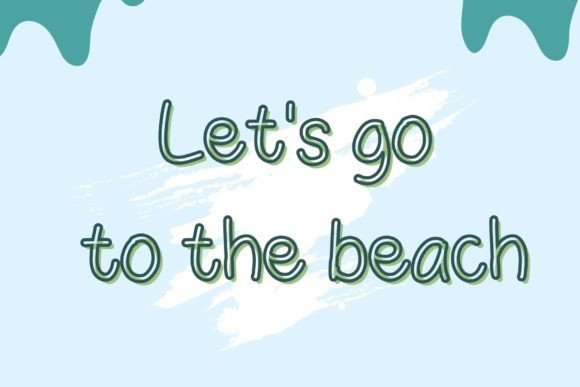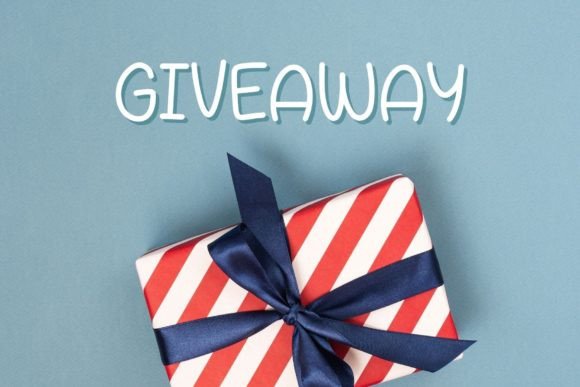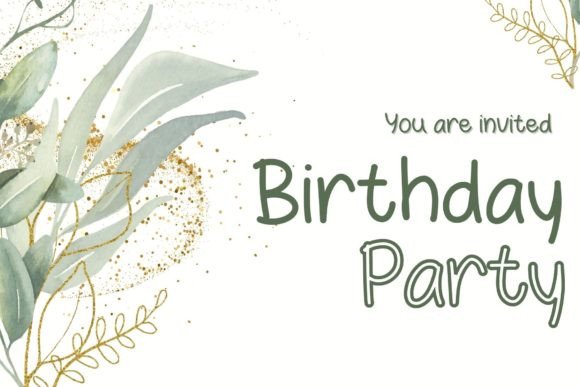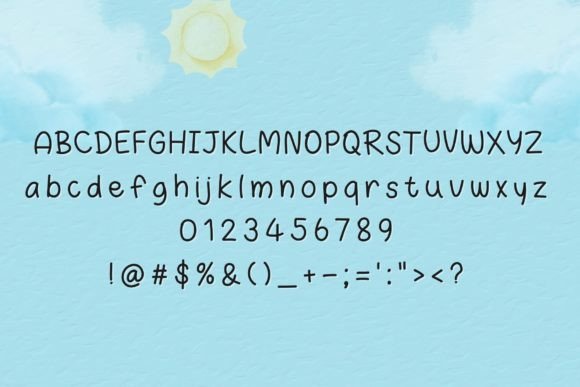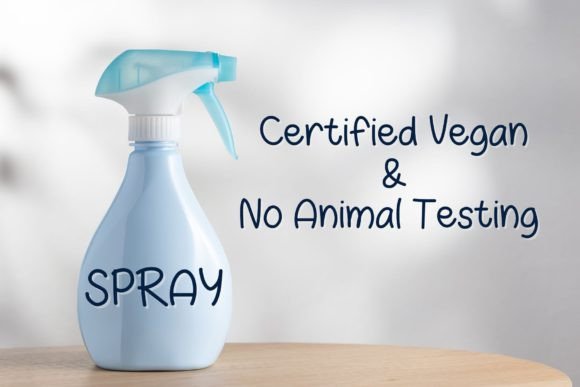
Discover the Elegance of Camilla Font: Elevate Your Design Projects
Are you a designer or creative looking to add a touch of sophistication and style to your projects? Look no further than the Camilla font. This stunning typeface is the perfect choice for those who want to elevate their design projects and make a lasting impression. In this article, we’ll explore the features and benefits of Camilla font, and why it’s a must-have for any designer or creative.
What is Camilla Font?
Camilla font is a modern, elegant, and versatile typeface that is perfect for a wide range of design projects. Its sleek lines, beautiful curves, and sophisticated style make it an ideal choice for designers who want to add a touch of luxury and refinement to their work. Whether you’re working on a branding project, a website, or a marketing campaign, Camilla font is sure to impress.
Key Features of Camilla Font
- Unique and Elegant Design: Camilla font features a unique and elegant design that sets it apart from other typefaces. Its sleek lines and beautiful curves make it perfect for adding a touch of sophistication to your design projects.
- Highly Versatile: Camilla font is highly versatile and can be used for a wide range of design projects, from branding and advertising to web design and publishing.
- Easy to Read: Despite its elegant design, Camilla font is easy to read, making it perfect for body text and other applications where readability is important.
- Scalable: Camilla font is highly scalable, making it perfect for use in a variety of contexts, from small captions to large headlines.
Why Choose Camilla Font?
So why choose Camilla font for your design projects? Here are just a few reasons why this typeface stands out from the crowd:
- Sophistication and Style: Camilla font adds a touch of sophistication and style to any design project. Its elegant design and beautiful curves make it perfect for designers who want to create a lasting impression.
- Flexibility: Camilla font is highly versatile and can be used for a wide range of design projects. Whether you’re working on a branding project or a website, this typeface is sure to fit the bill.
- Easy to Use: Camilla font is easy to use and can be easily integrated into your design workflow. Whether you’re a seasoned designer or just starting out, this typeface is easy to work with.
How to Use Camilla Font in Your Design Projects
Using Camilla font in your design projects is easy. Here are a few tips to get you started:
- Pair it with Other Fonts: Camilla font pairs well with other fonts, making it easy to create a unique and cohesive design.
- Use it for Headlines and Titles: Camilla font is perfect for headlines and titles, where its elegant design and beautiful curves can really shine.
- Experiment with Different Sizes and Colors: Camilla font is highly scalable and can be used in a variety of sizes and colors. Experiment with different sizes and colors to find the perfect look for your design project.
In conclusion, Camilla font is the perfect choice for designers and creatives looking to add a touch of sophistication and style to their projects. With its unique and elegant design, high versatility, and ease of use, this typeface is sure to elevate your design projects and make a lasting impression. Upgrade your design projects with Camilla font and experience the perfect blend of sophistication and versatility. Add it to your font library today and let your creativity shine!